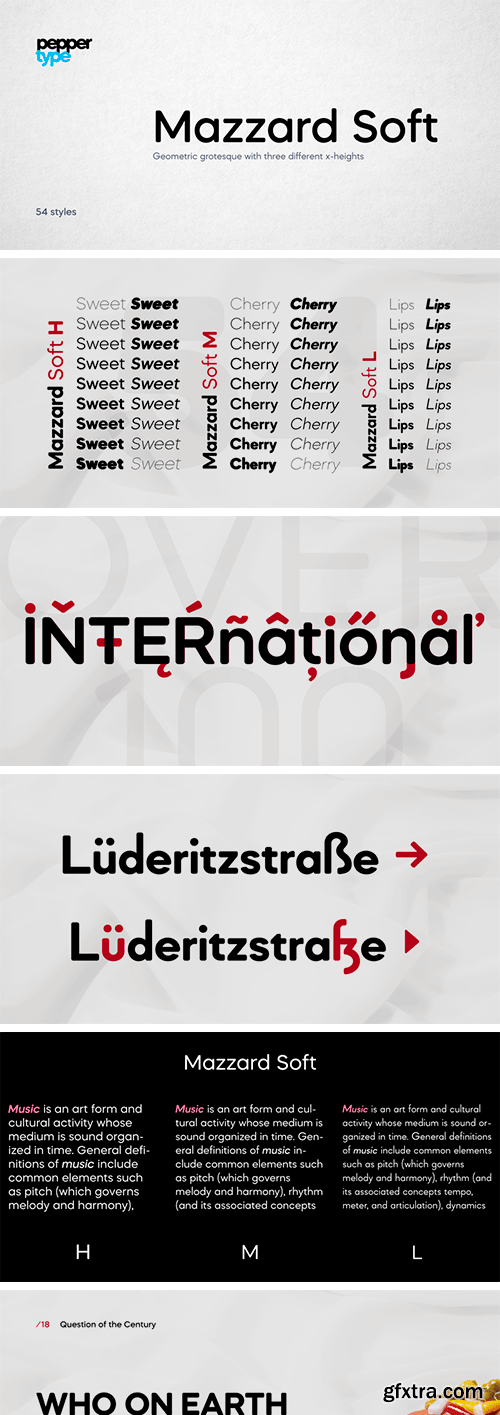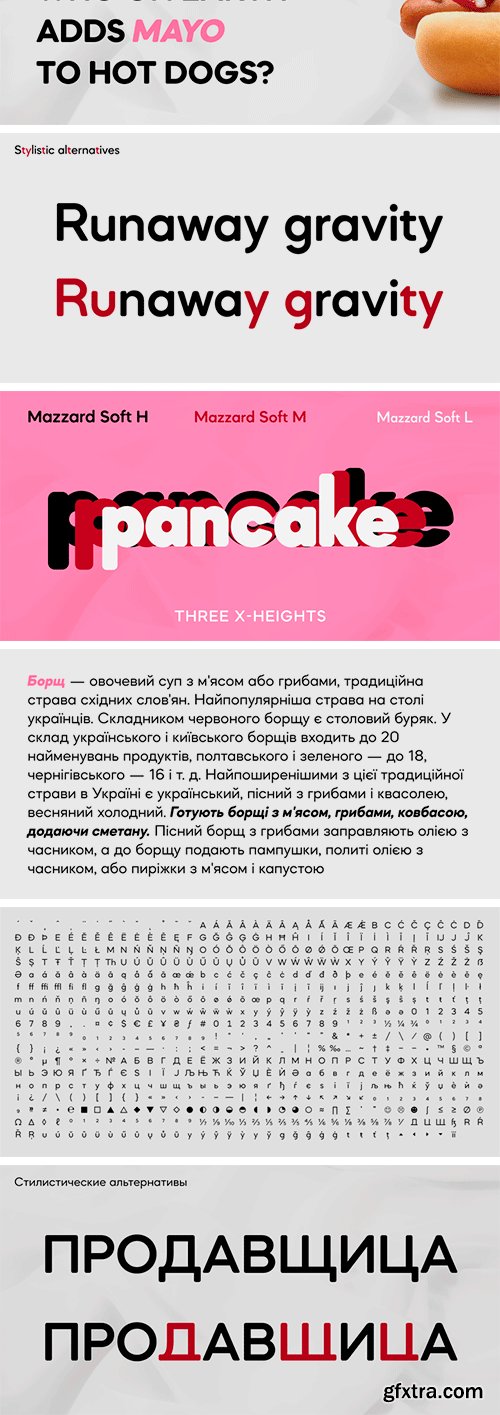
Mazzard Soft is a rounded version of Mazzard – a superfamily of three geometric grotesques with three different x-heights (H, M, and L). It features rich language support, includes Cyrillic, and offers a wide variety of alternate forms.